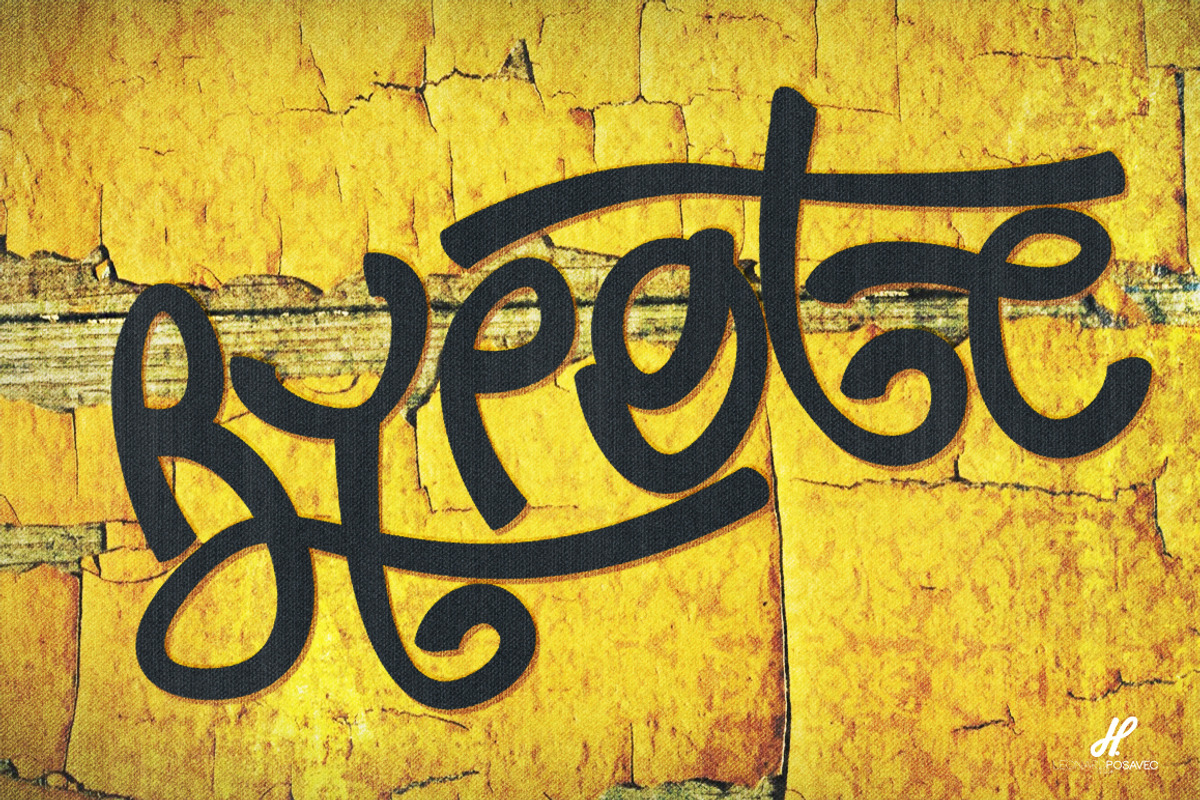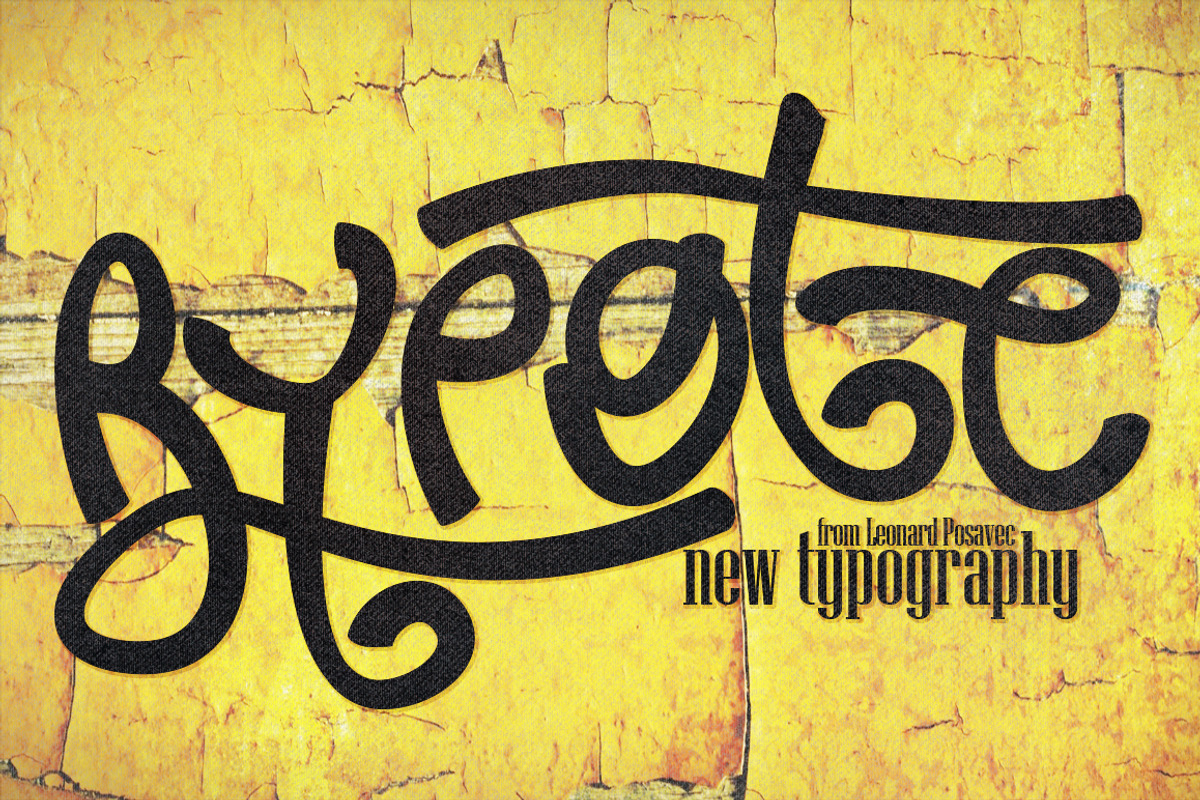
Font | Rypote
Font | Rypote by Leonard Posavec is a font selected for branding, posters, packaging, typography.
Why Font | Rypote is worth a look
Font | Rypote by Leonard Posavec fits naturally into Branding, posters, packaging, typography.